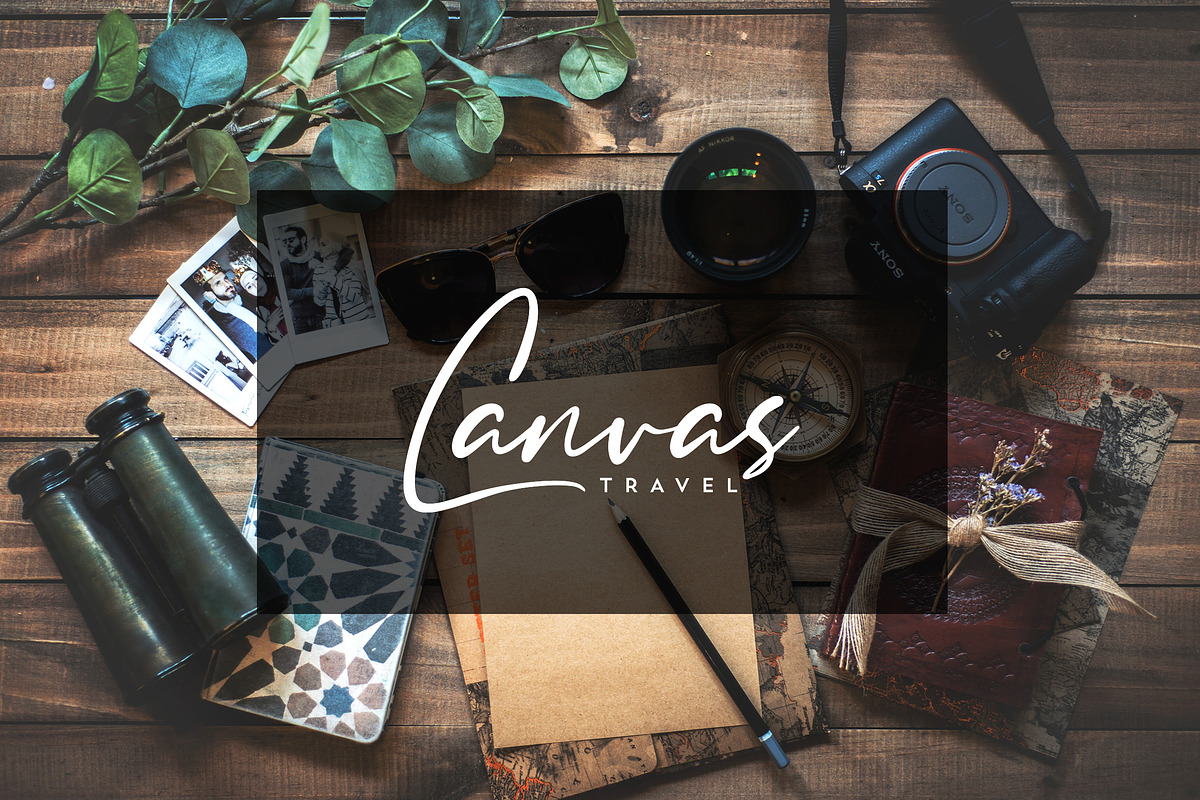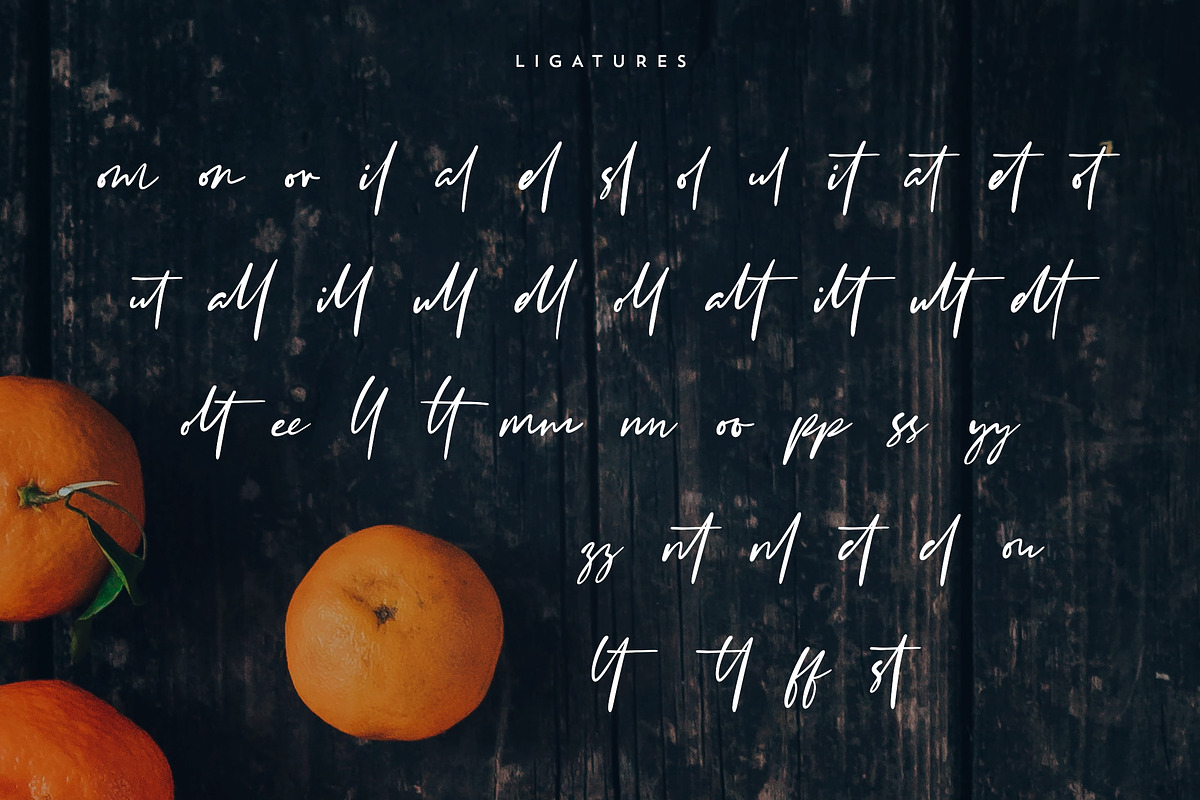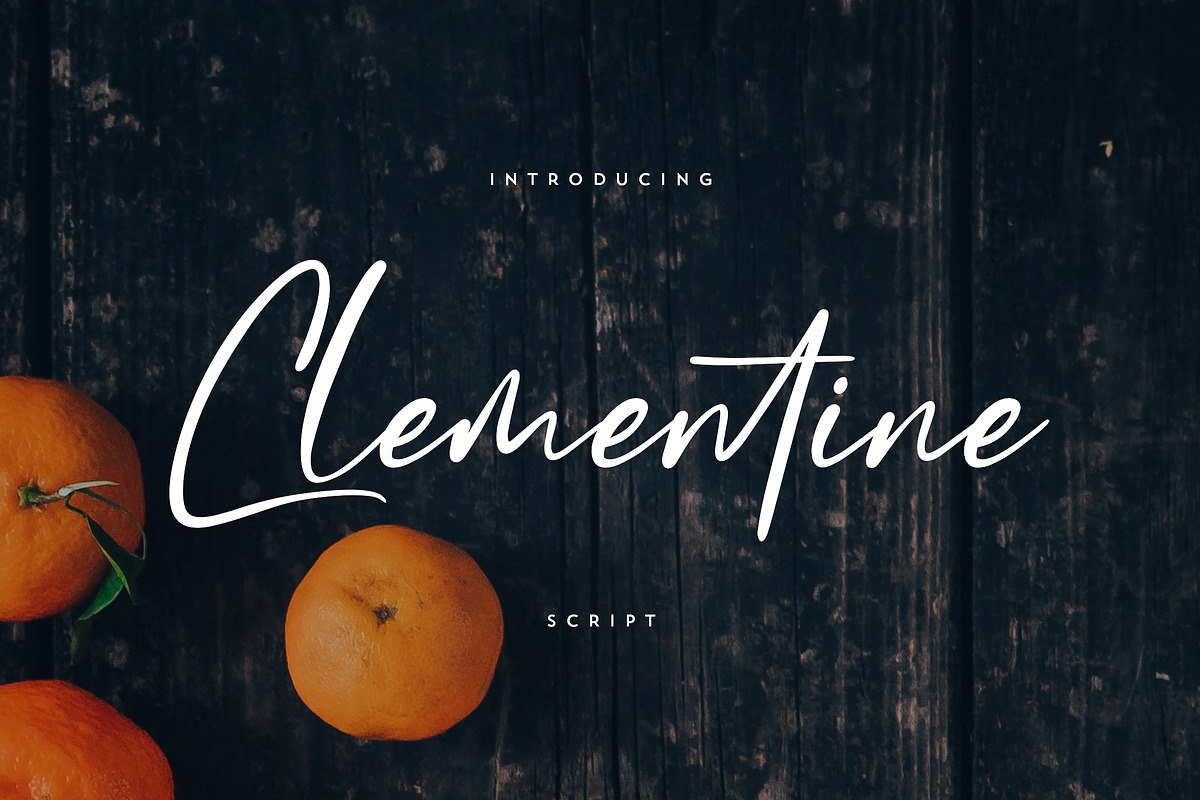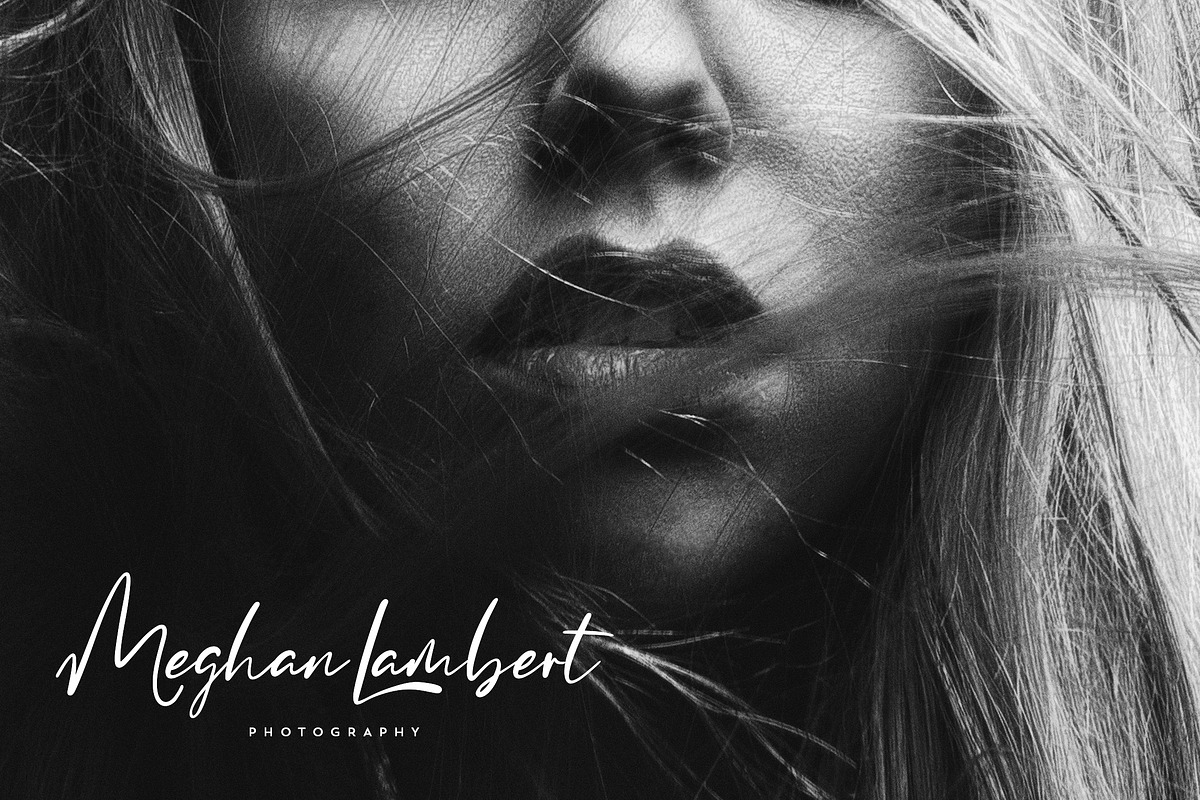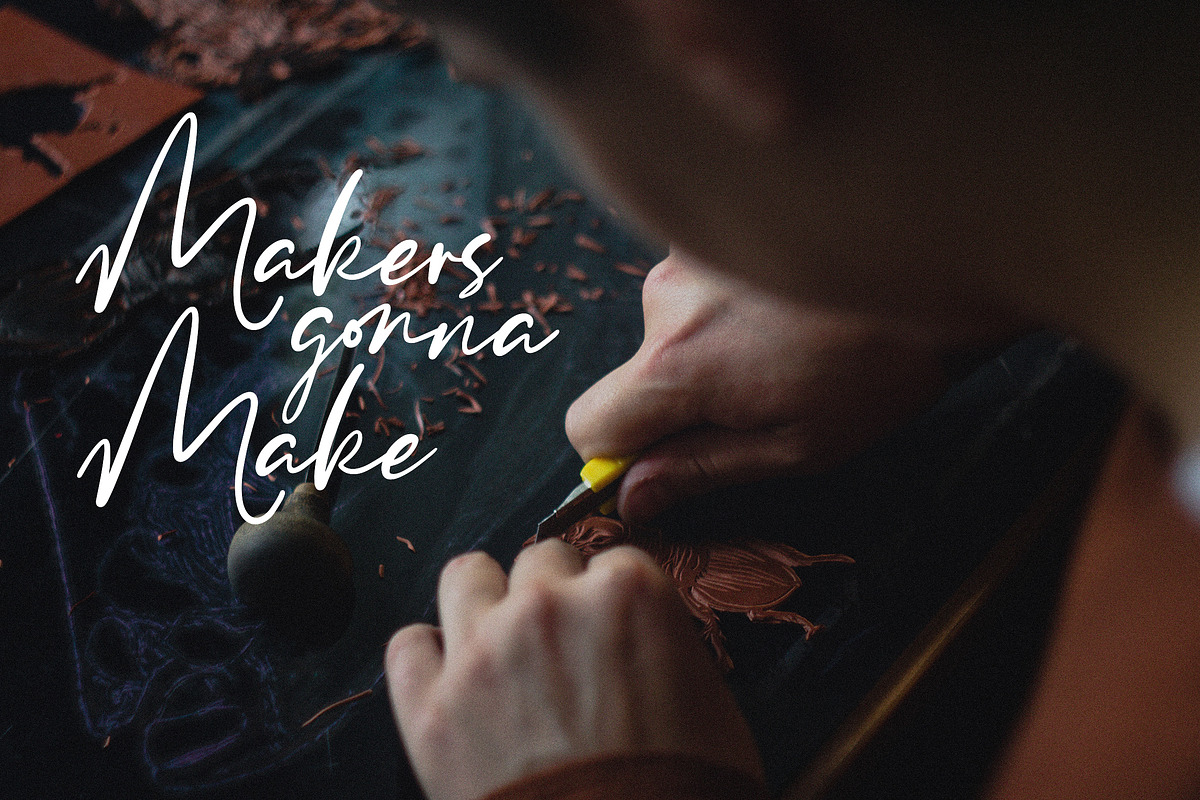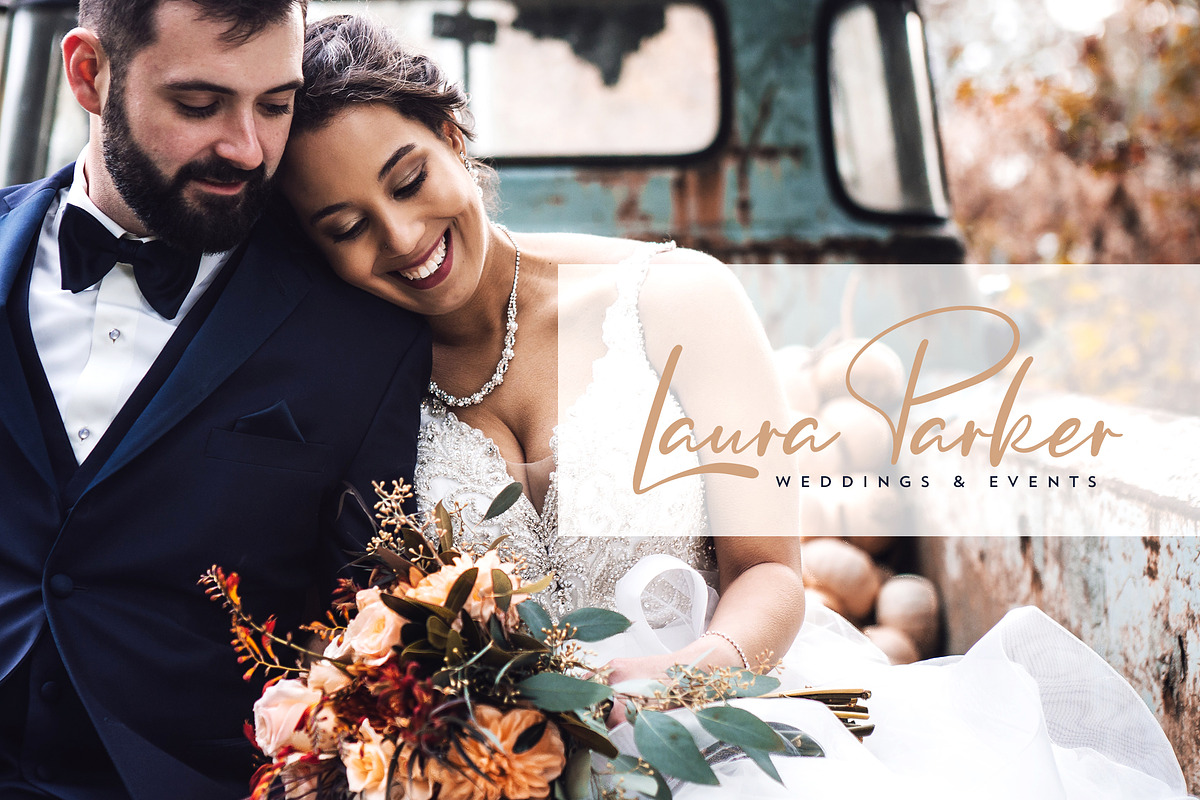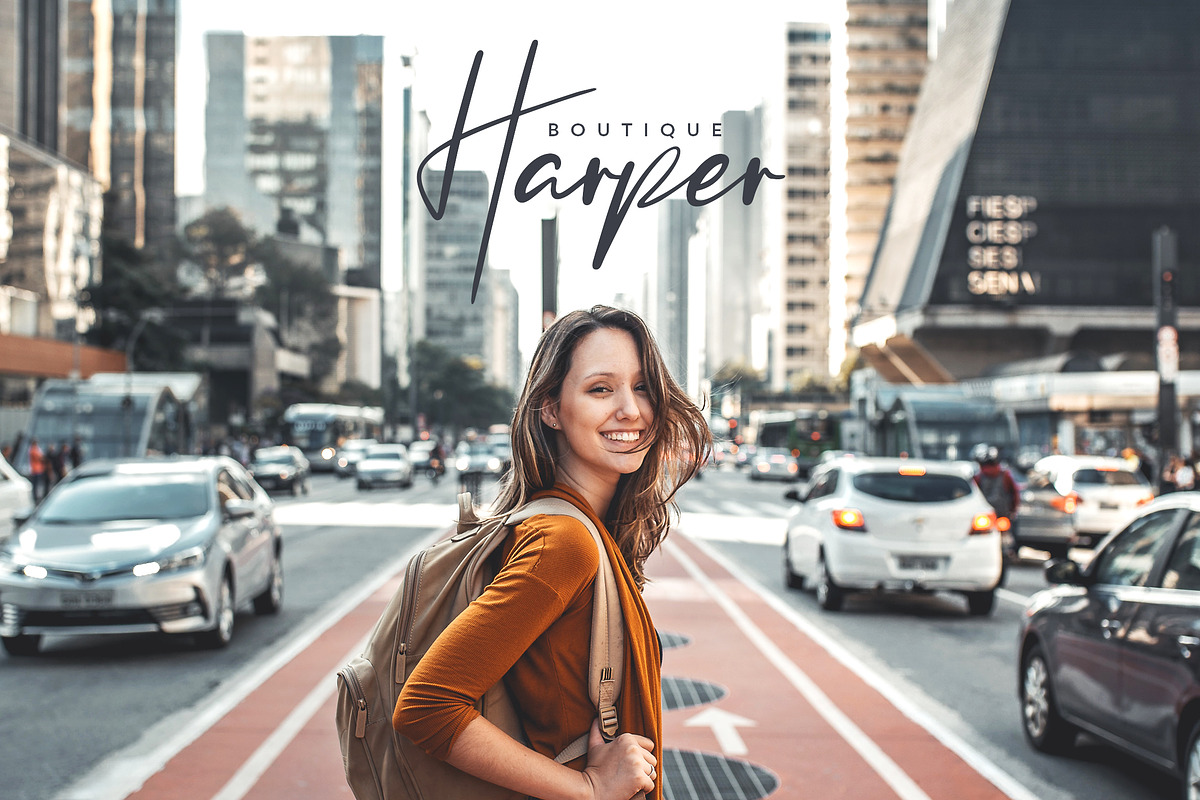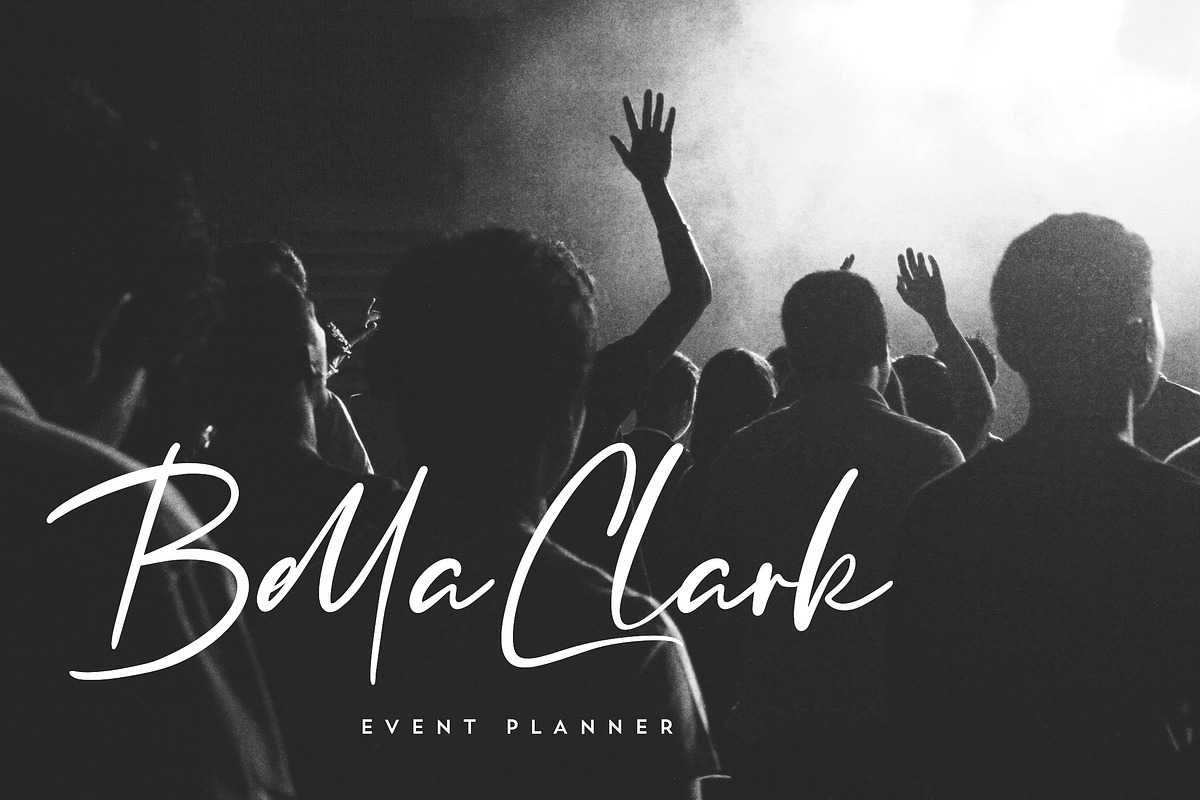
Clementine Script
Introducing Clementine Script
Clementine is clean script with multilingual support. It's a very versatile font that works great in large and small sizes.
Clementine is perfect for branding projects, home-ware designs, product packaging, magazine headers - or simply as a stylish text overlay to any background image.
- Introducing Clementine Script Clementine is clean script with multilingual support.
Why Clementine Script is worth a look